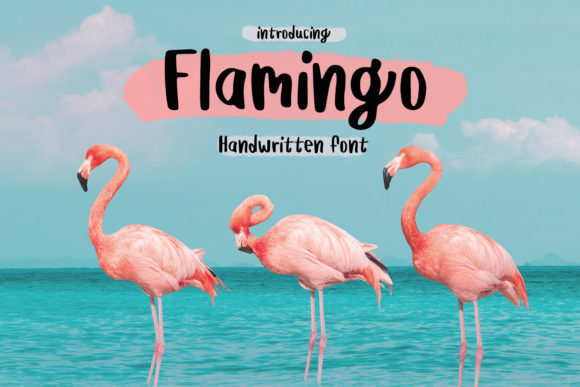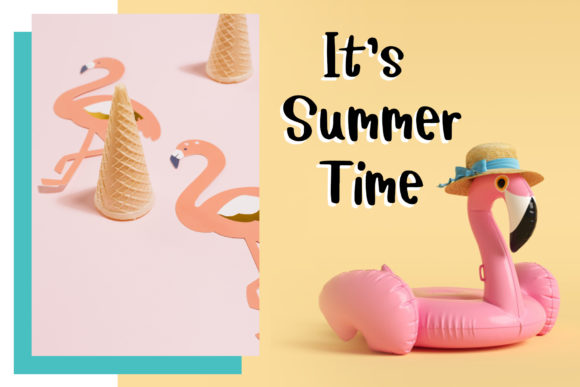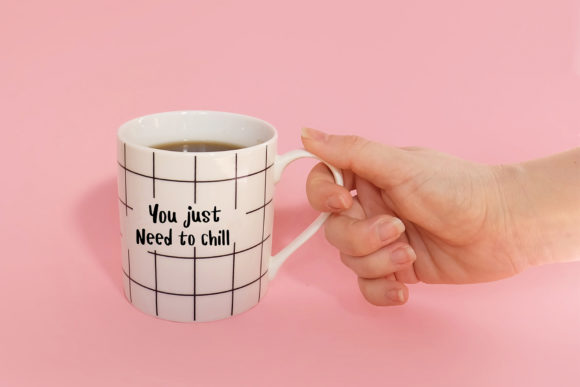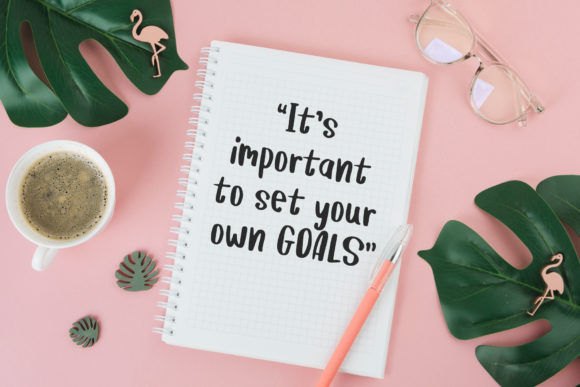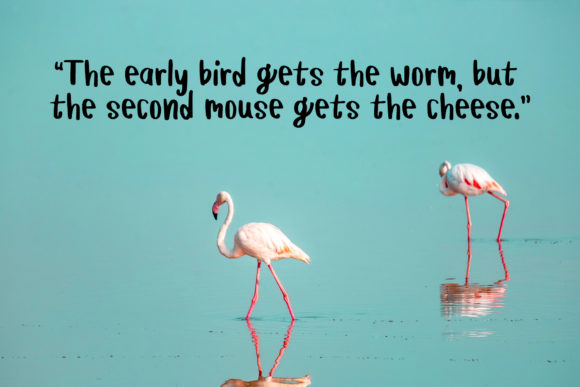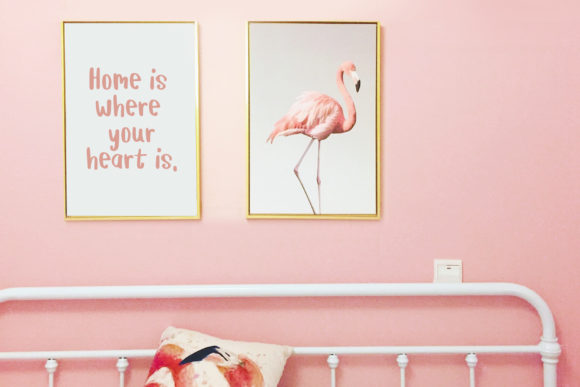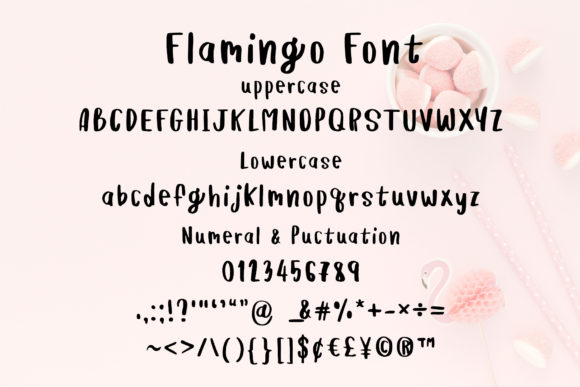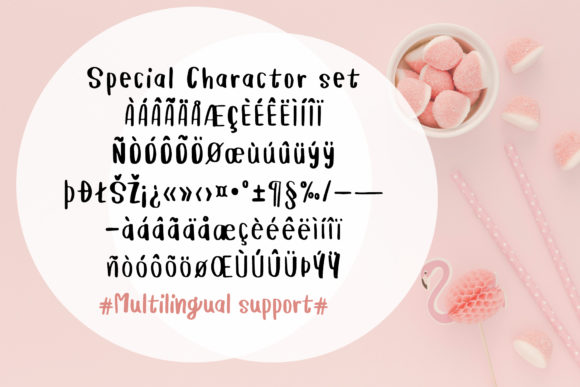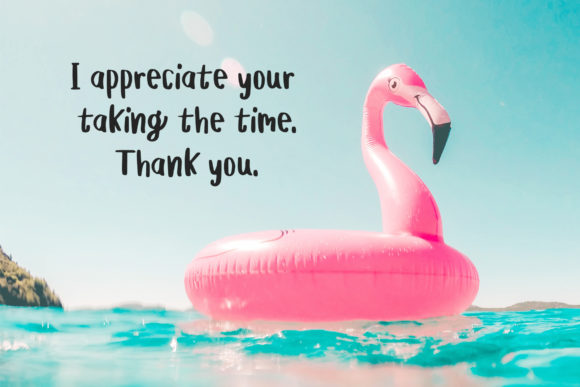
Flamingo Font
About Flamingo Font
Flamingo is a sweet and friendly handwritten font. Its natural and unique style makes it incredibly fitting to a large pool of designs. The only limit is your imagination!